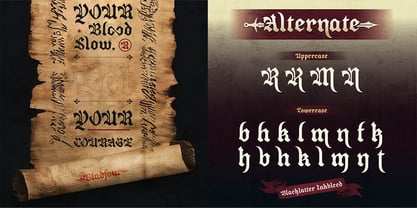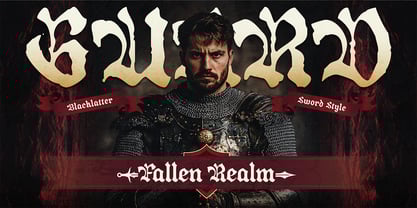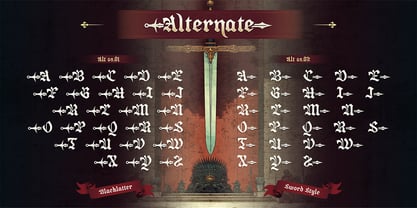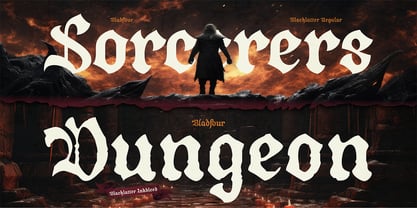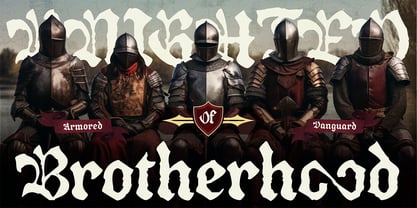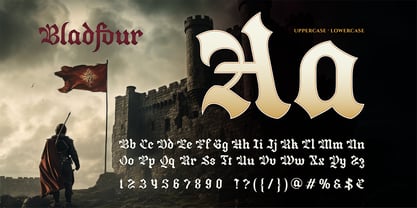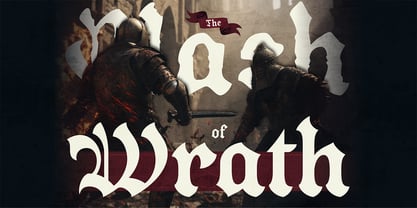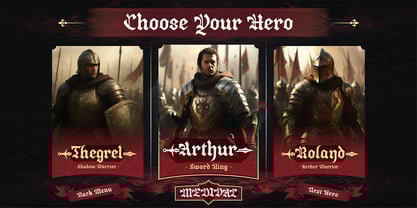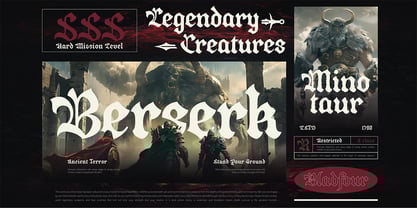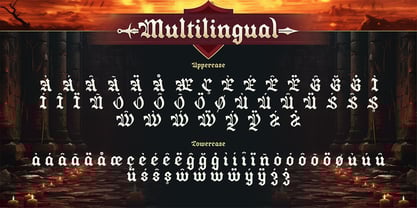
Bladfour
by Burntilldead
The Bladfour Font Family was designed by Eric Kurniawan and published by Burntilldead. Bladfour contains 2 styles and family package options.
Bladfour is a powerful blackletter typeface forged for epic stories, dark fantasy worlds, and legendary visuals. Inspired by medieval manuscripts, ancient warriors, and heroic tales, Bladfour brings a bold, commanding presence to every design it touches. This font comes with two distinctive styles — Blackletter and Inkbleed — allowing you to switch between a clean, sharp look or a raw, ink-soaked texture for a more dramatic and gritty feel. From game titles to fantasy posters, Bladfour instantly delivers a strong medieval atmosphere with cinematic impact. Designed with carefully crafted details, strong vertical strokes, and classic gothic character shapes, Bladfour works beautifully for fantasy games, movie titles, book covers, branding, posters, logos, and medieval-themed projects.  If you’re looking for a typeface that feels heroic, dark, and legendary — Bladfour is ready to conquer your design battlefield.
Bladfour